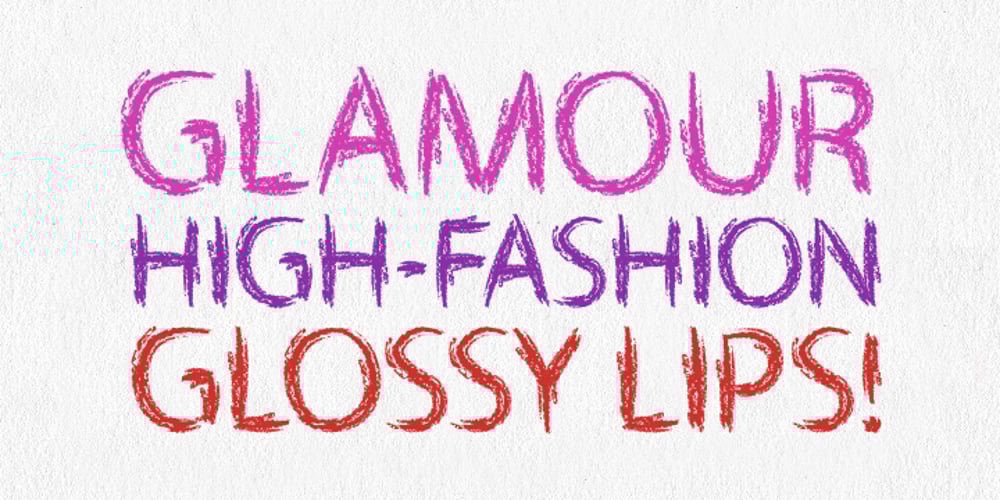
Lippy Sans Font Family was designed by Alex Haigh, Dawn Lewandowski and published by HyperFluro. Lippy Sans contains 1 styles and family package options. Lippy Sans is a brand new typeface designed to give a 100% lipstick feel. The reason the lipstick feel is so authentic is because the original sketches were actually drawn in lipstick, taken into illustrator, retraced and then edited carefully in fontlab. If you’re after a lipstick typeface with an authentic feel, then Lippy Sans is the one for you.